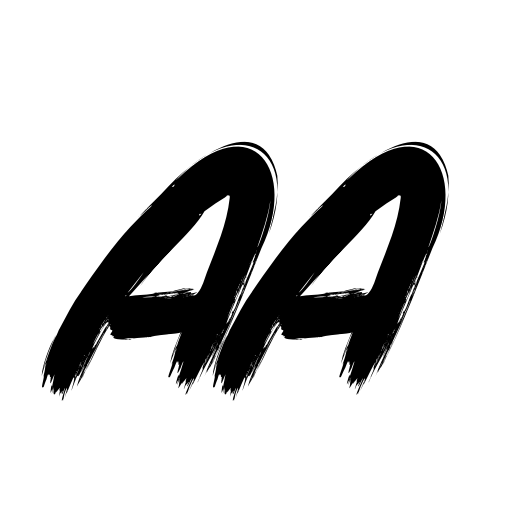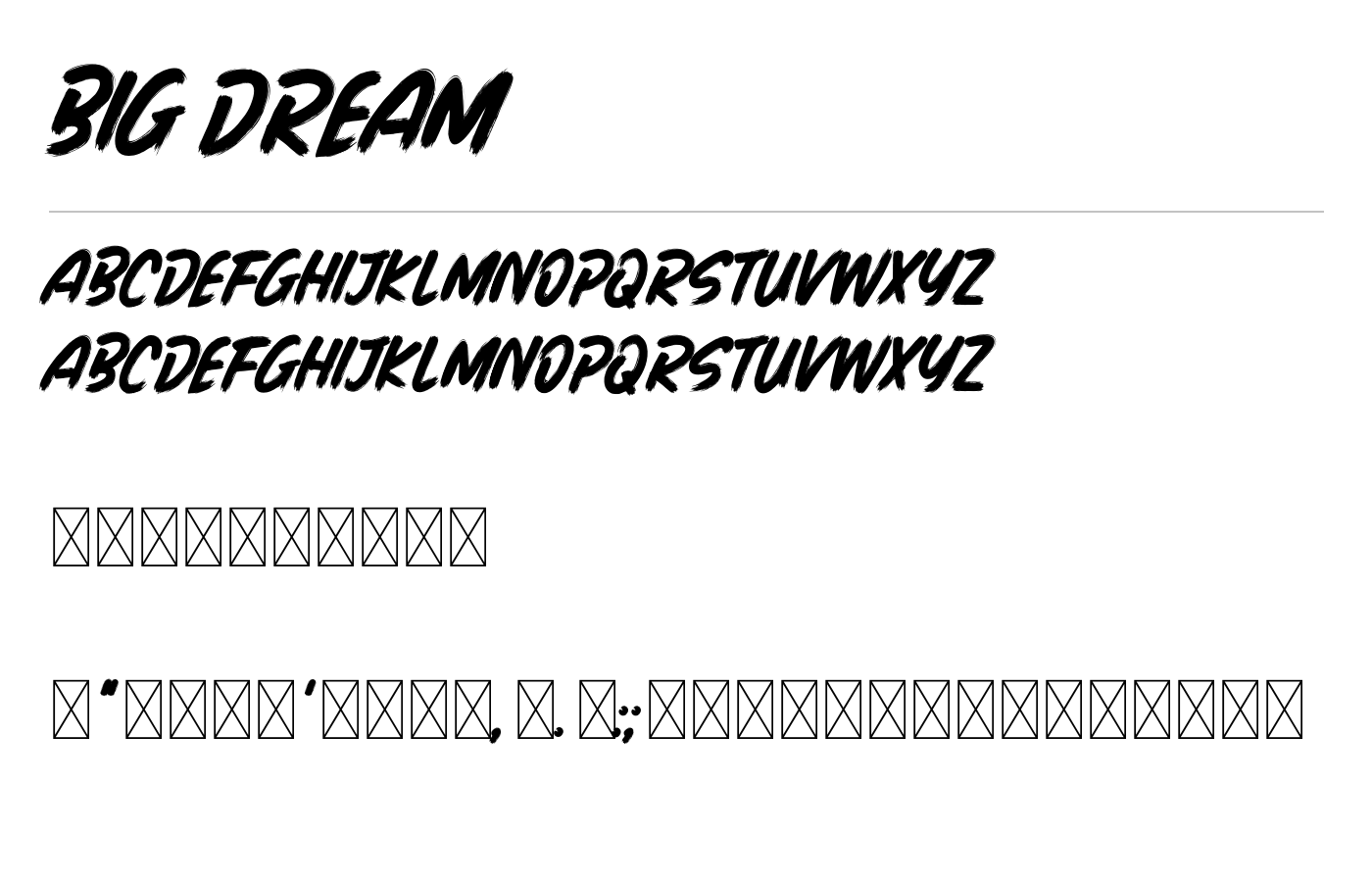
Big Dream is a bold, energetic brush script font that captures a hand-painted, dynamic feel with its thick, textured strokes and italicized slant. Its uppercase letterforms are lively and expressive, making it perfect for eye-catching headlines, branding, and packaging where a playful yet impactful statement is desired. This font works well for creative projects that want to convey passion, spontaneity, and a modern artistic vibe.
BIG DREAM Font